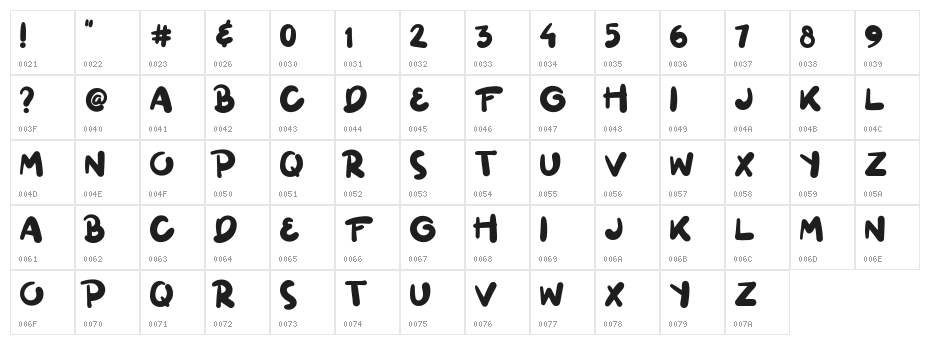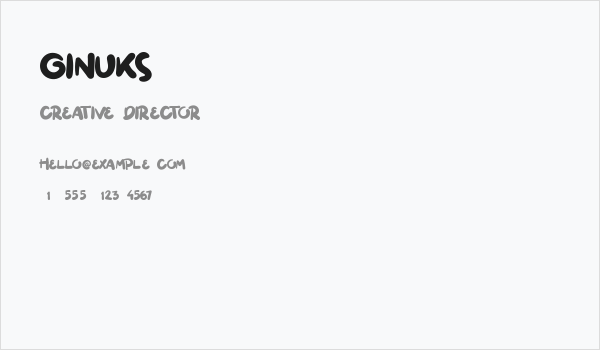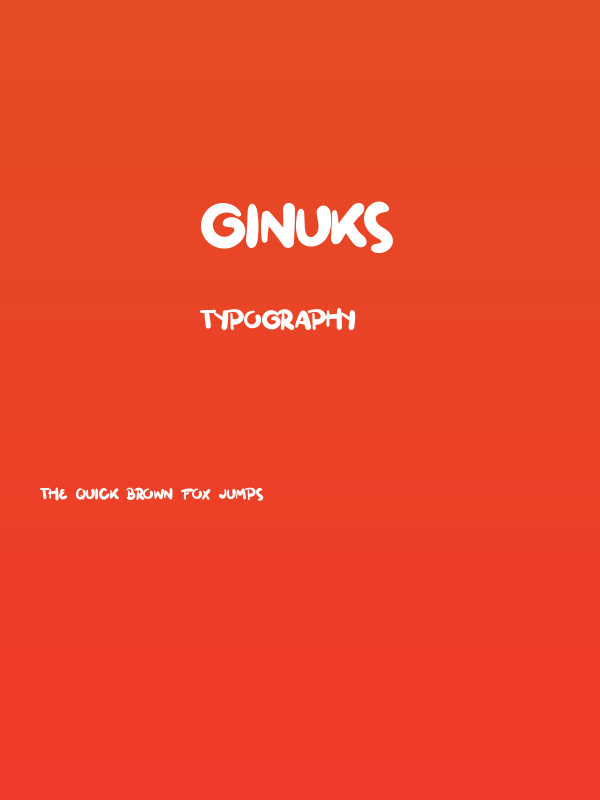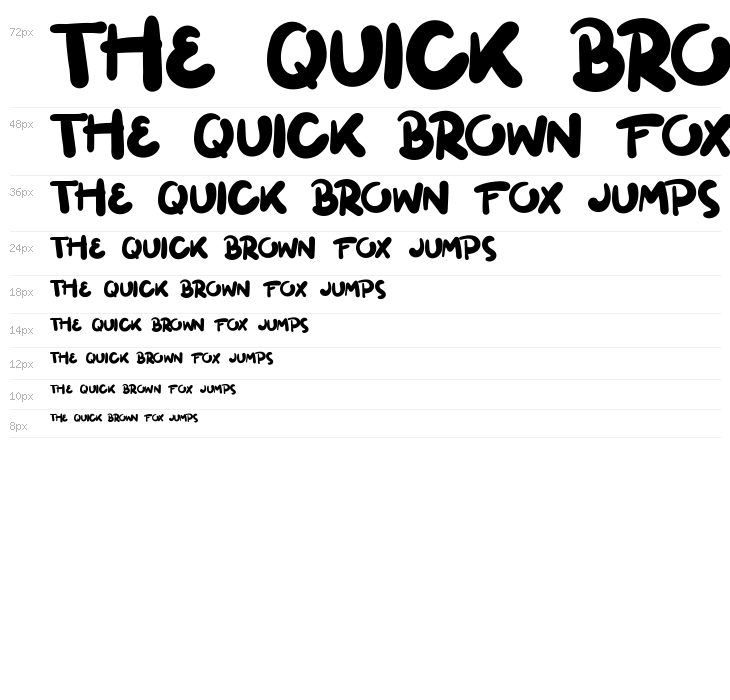
Ginuks Font
Ginuks Description
This font features a playful and bold handwritten style, characterized by its rounded and slightly irregular letterforms. The uppercase and lowercase letters maintain a consistent thickness, creating a cohesive look. The numbers and special characters follow the same playful aesthetic, making them suitable for informal and creative designs. The overall appearance is friendly and approachable, with a touch of whimsy that adds personality to any project. The font's boldness ensures it stands out, while its rounded edges soften its impact, making it versatile for various uses.
| Proposed Projects | Ideal for children's books, playful branding, casual invitations, and creative posters. |